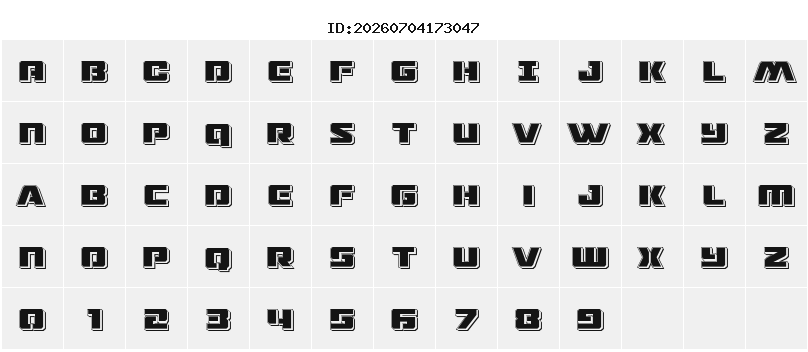
Drone Tracker Punch Preview
• Font Name: Drone Tracker Punch
• Full Font Name: Drone Tracker Punch
About Drone Tracker Punch.ttf
Drone Tracker Punch.ttf is a modern, elegant sans-serif font designed for ultimate readability and visual harmony. Perfect for branding, headlines, web design, and print materials.